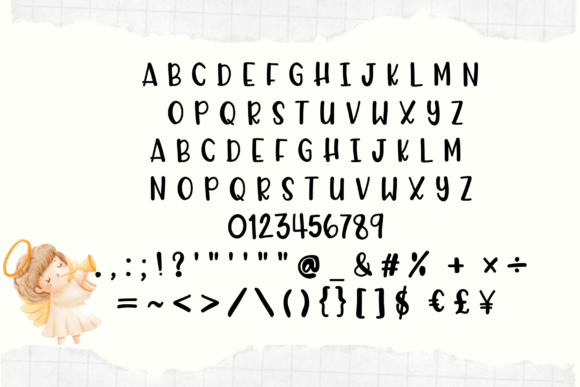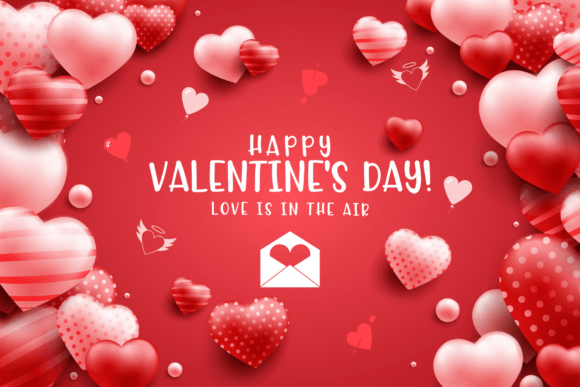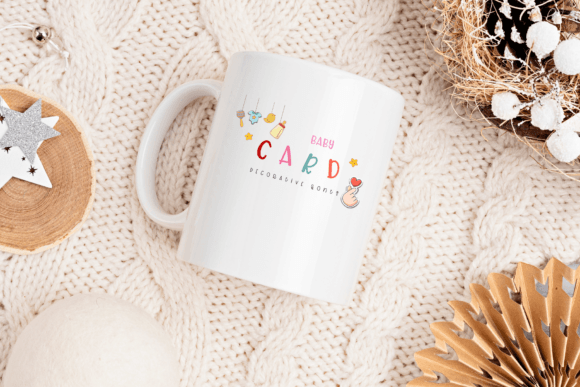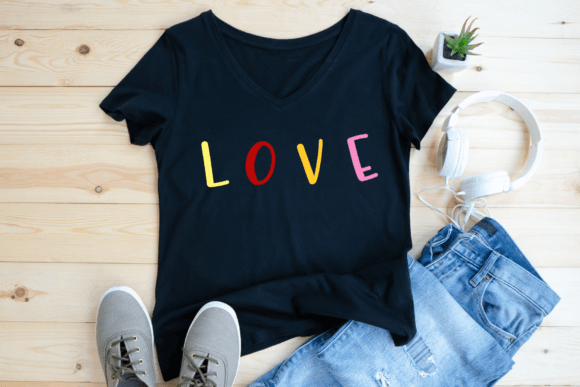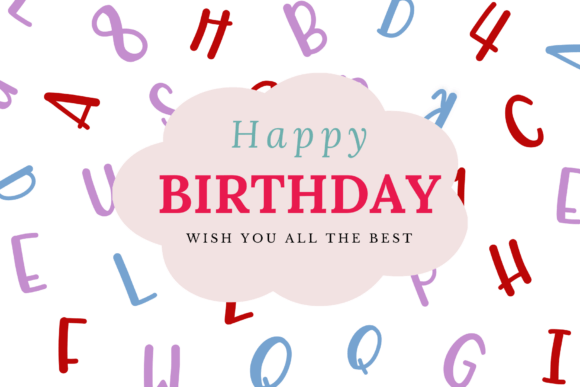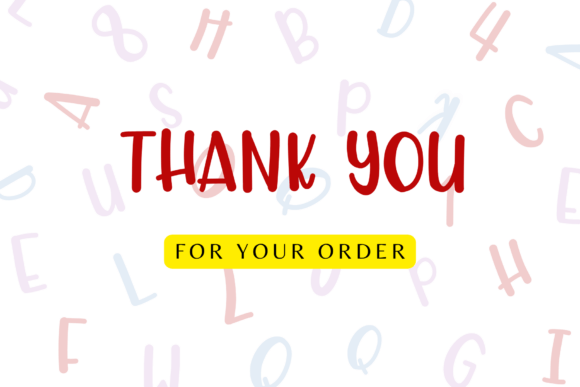
Introducing the Angelic Touch: Angel Font
Have you ever stared at a blank page, feeling stuck and unsure of how to bring your creative vision to life? We’ve all been there. For me, it was a design project that required a font that exuded warmth and elegance. I wanted something that would make my text feel like a handwritten note from a dear friend. That’s when I discovered Angel Font, a beautiful handwritten display font that captured the essence of natural, flowing style.
| 👤 Author | Sirinart |
Angel Font is more than just a pretty face; it’s a versatile tool for designers looking to add a personal touch to their work. From invitations to social media posts, this font is perfect for making your text look welcoming and stylish. Its soft, smooth lines make it feel friendly and approachable, making it an invaluable asset for any designer looking to elevate their designs.
- Unique Characteristics: Angel Font features a distinctive, elegant design with intricate details and subtle flair, making it perfect for formal and creative applications.
Angel Font Review
Angel Font is a beautiful, elegant typeface that’s sure to catch your eye. ✨ The delicate, handwritten feel of this font makes it perfect for any project that needs a touch of whimsy and sophistication. ✨ I love how the font’s irregularities and flourishes add a sense of humanity to the text, making it feel more approachable and relatable.
However, there are a few limitations to consider. ⚠️ The font’s readability can suffer when used at smaller sizes or in dense text blocks. ⚠️ Additionally, the font’s complexity may not be suitable for projects with tight deadlines or limited design resources.
- Beautiful, elegant design
- Delicate, handwritten feel
- Perfect for projects that need a touch of whimsy and sophistication
Overall, I think Angel Font is a great choice for designers who want to add a touch of elegance and sophistication to their projects. While it may not be the best choice for every project, it’s certainly a great option for those that require a more refined and sophisticated look.
The Angel Font is ideal for creating whimsical and dreamy designs. Use it for:
- Children’s book illustrations and typography.
- Magazine and blog headers.